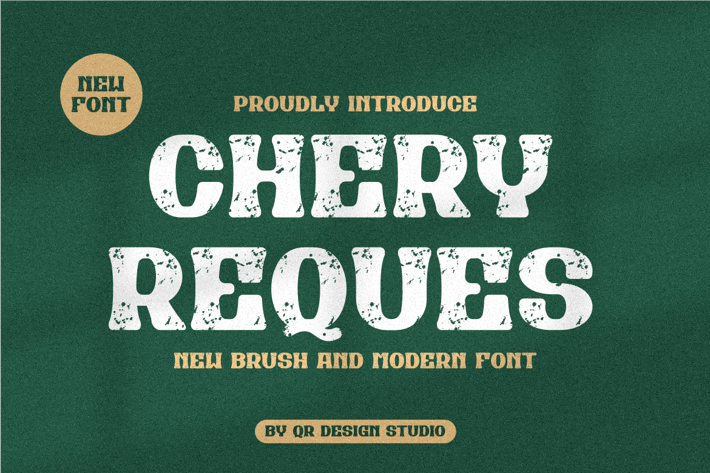
Chery Reques - Grunge Font
Chery Reques - Grunge Font is a bold and authentic display font.
The font is suitable for any branding project like food, travel, poster, kids, logo, sport, and many more.